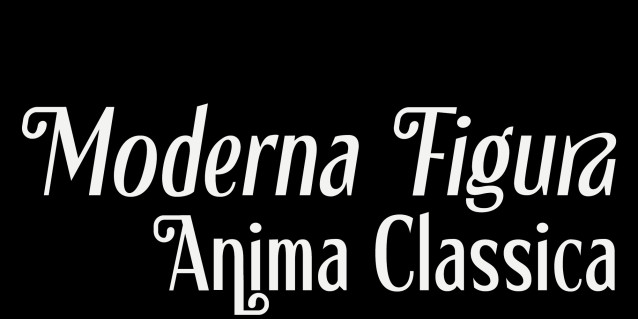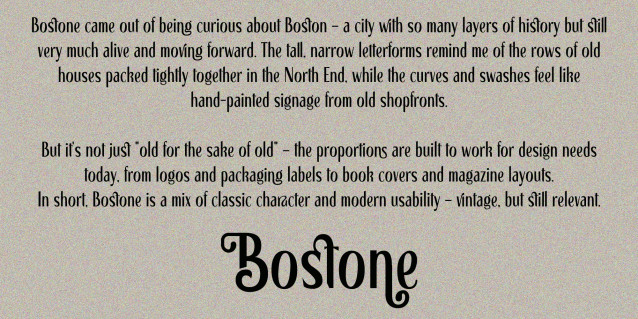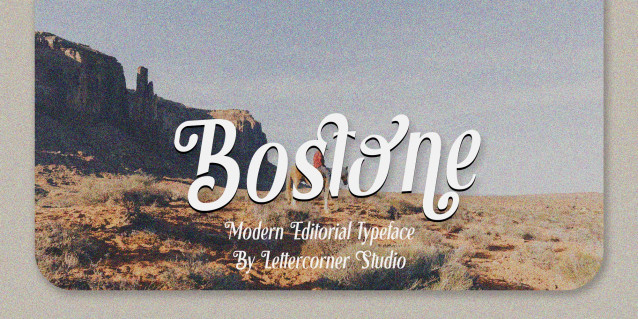
Bostone Font
Bostone Font is a display font with a strong character and a confident presence. Built on letterforms that are bold, structured, and full of personality, Bostone carries the weight of old-world craftsmanship while still feeling sharp and contemporary — like a historic façade rebuilt with modern materials. Every letter feels solid, deliberate, and full of conviction.
With 305 glyphs including full Latin character support, Bostone is designed for large scales — headlines, covers, branding, and any situation where typography needs to command attention before the words are even read. Its bold structure brings a sense of authority and permanence, while subtle details keep the design feeling crafted rather than mechanical.